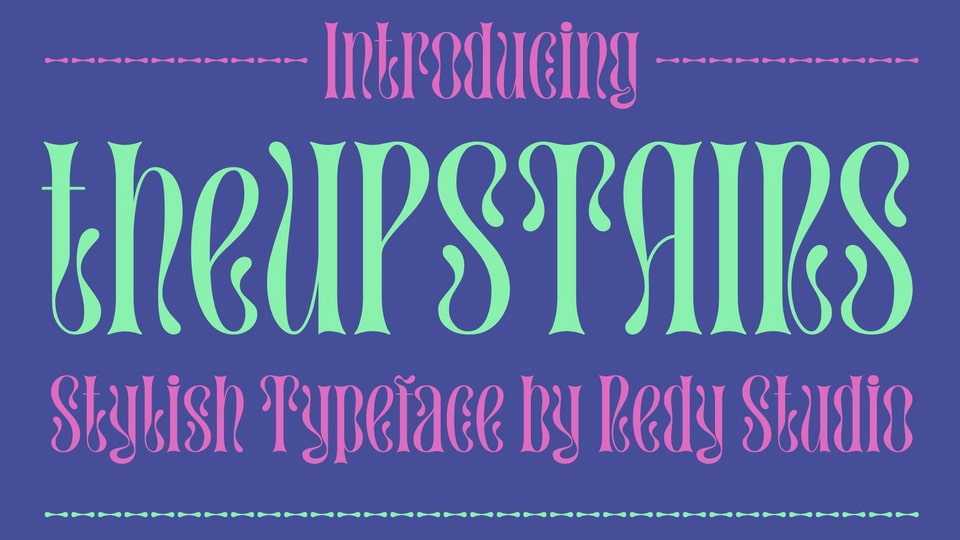
Download The Upstairs font, a cool and unique typeface that gives your work an awesome look. The Upstairs font is great for books, magazines, logos, branding, photography, quotes, blog header, poster, advertisements, etc.
Designer: Redy Studio